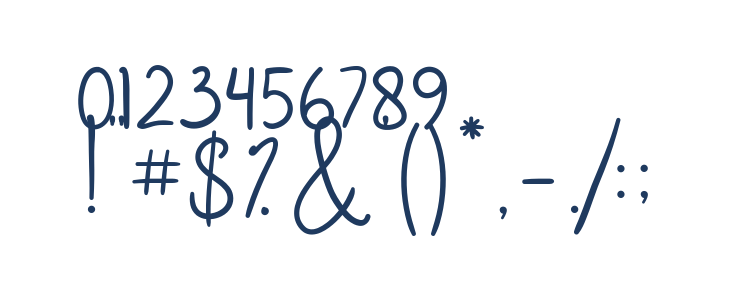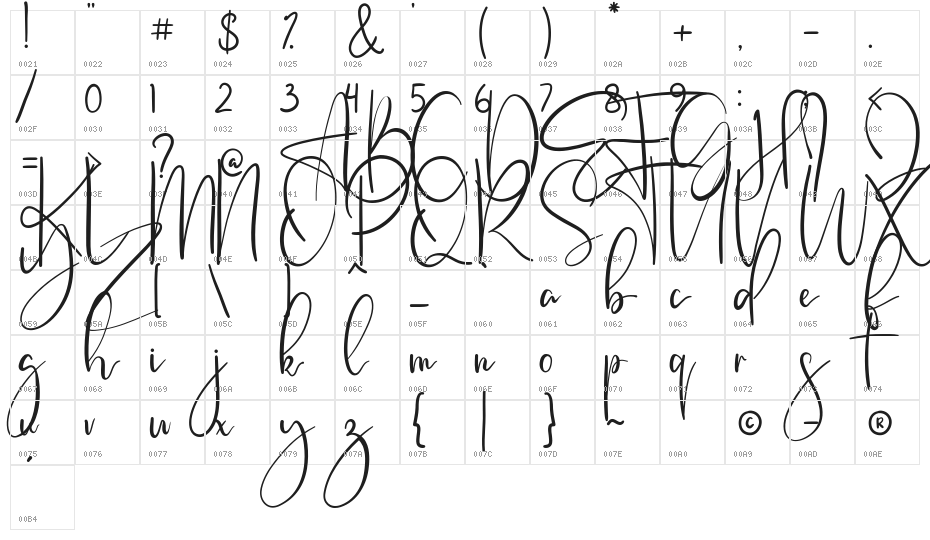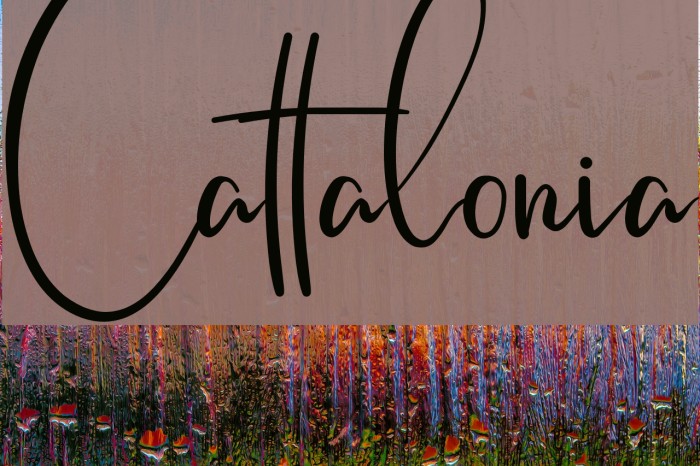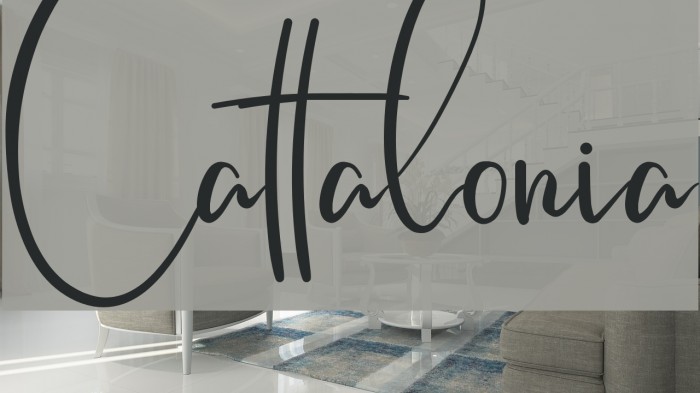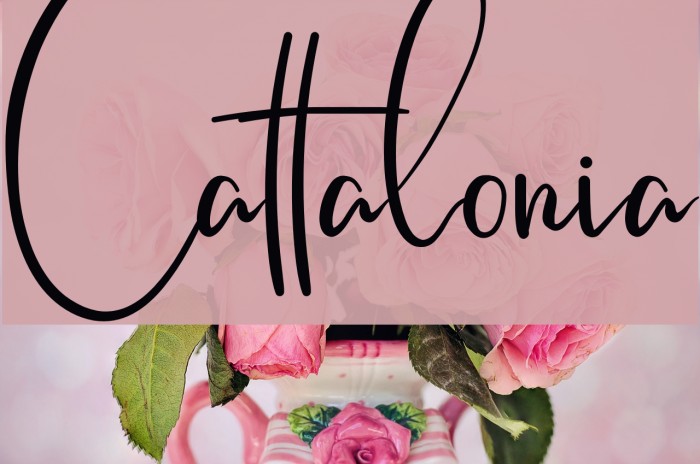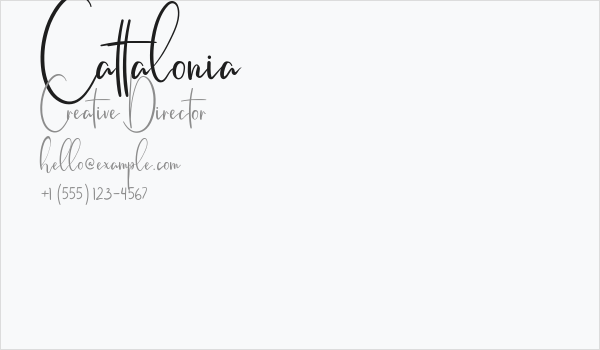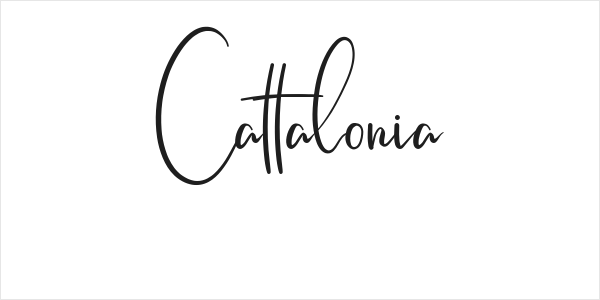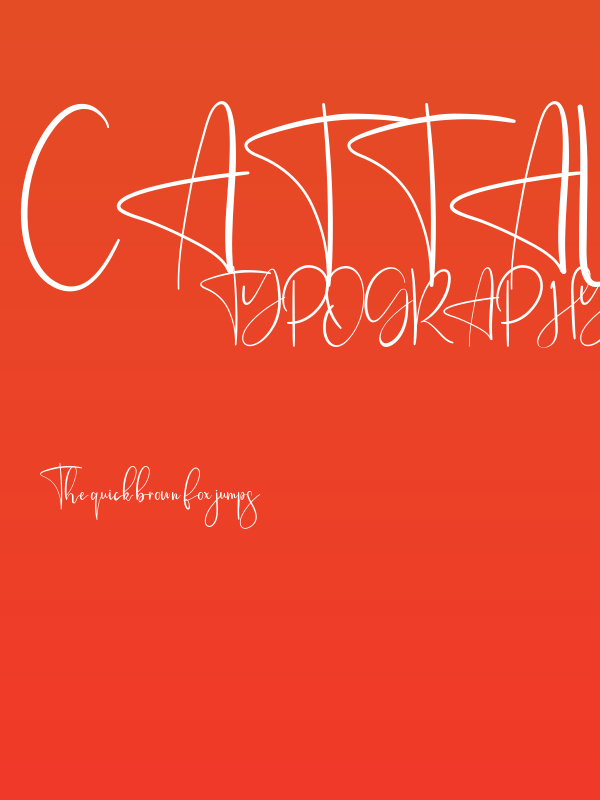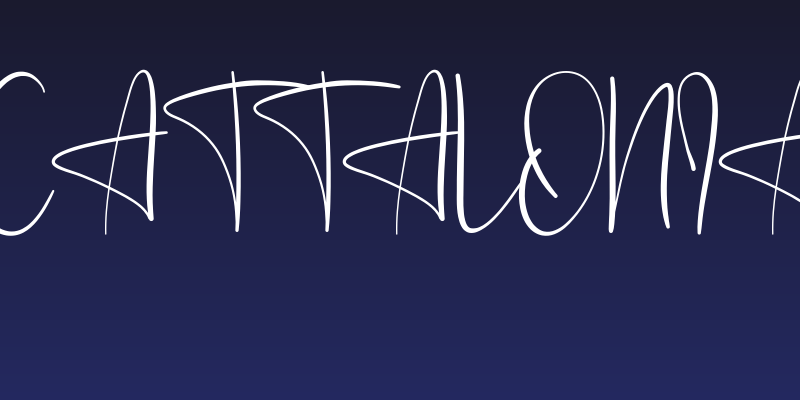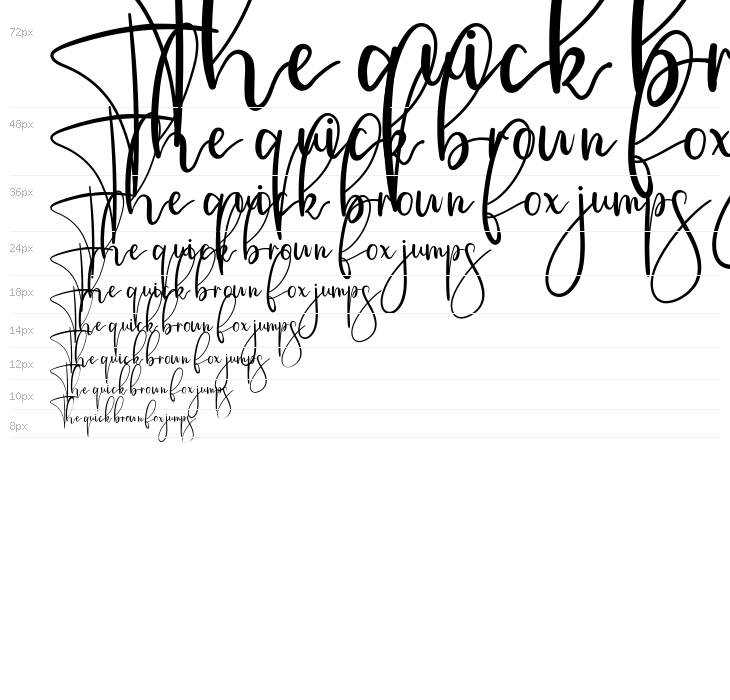
Cattalonia Font
Cattalonia Description
This font exudes a modern and elegant script style, characterized by its flowing, cursive letterforms. The uppercase letters are tall and slender, with a distinctive looped and interconnected design that adds a touch of sophistication. The lowercase letters maintain a consistent style, featuring smooth curves and a slightly more compact form. The numerals are clear and legible, following the same graceful aesthetic. Special characters are thoughtfully designed to complement the overall look, making this font versatile for various uses. Its artistic flair makes it suitable for creative projects that require a personal touch.
| Use Case | Logos, Invitations, Headlines |
| Proposed Projects | Ideal for wedding invitations, branding, social media graphics, and elegant stationery. |